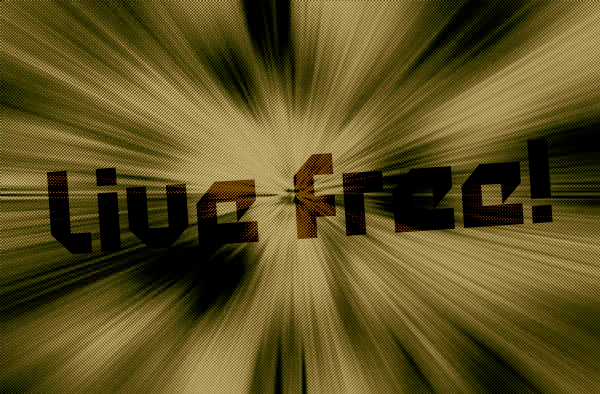
• Based on a popular font "Technotot", This font was created by Darrell Flood, and now, This is a modified version of Technotot and the name, Saponin.